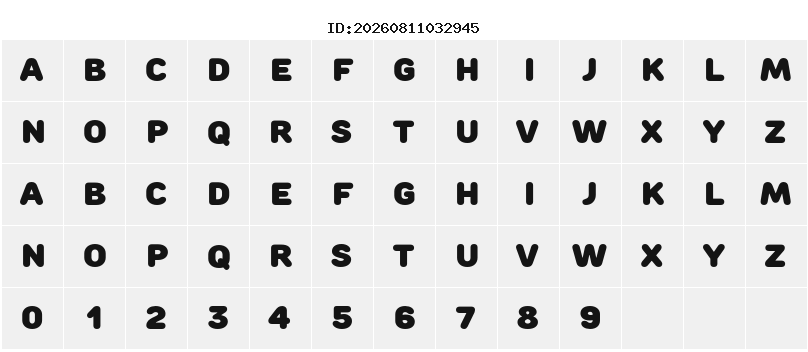
• Font Name: Rounds Black
• Designer: Typetype
• Manufacturer: Typetype
• Description: Designed for Typetype in 2014 by Ivan Gladkikh. TT Rounds is one of series of font families which were designed for use in web and mobile applications, print and multimedia environments.
Rounds Black.otf is a modern, elegant sans-serif font designed for ultimate readability and visual harmony. Perfect for branding, headlines, web design, and print materials.